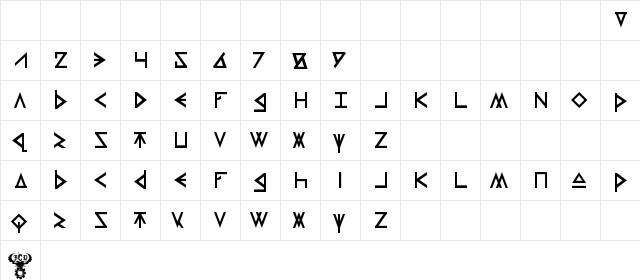
Thors Hammer Regular
| Designer | Bolt Cutter Design |
Design Context for Thors Hammer Typeface
Thors Hammer is a composed and adaptable typeface that performs quietly and consistently across a wide range of design contexts.